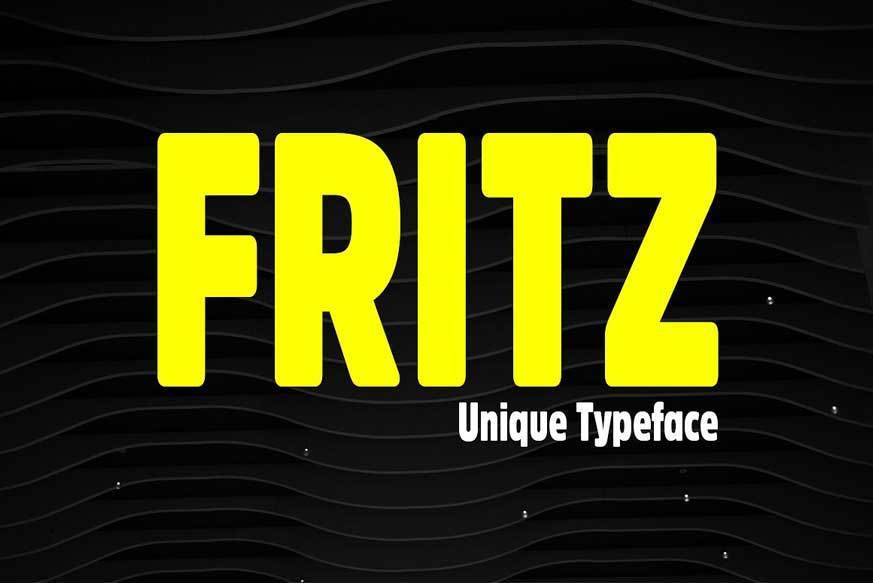
Fritz Display Typeface
Fritz is a unique typeface for logo, branding, headlines, big text & display usage. This sweet rounded typeface is inspired from famous restaurant brands.
The typeface is best suited for creating outstanding logos, promotional content and marketing graphics that can really grab attention from your visitors.